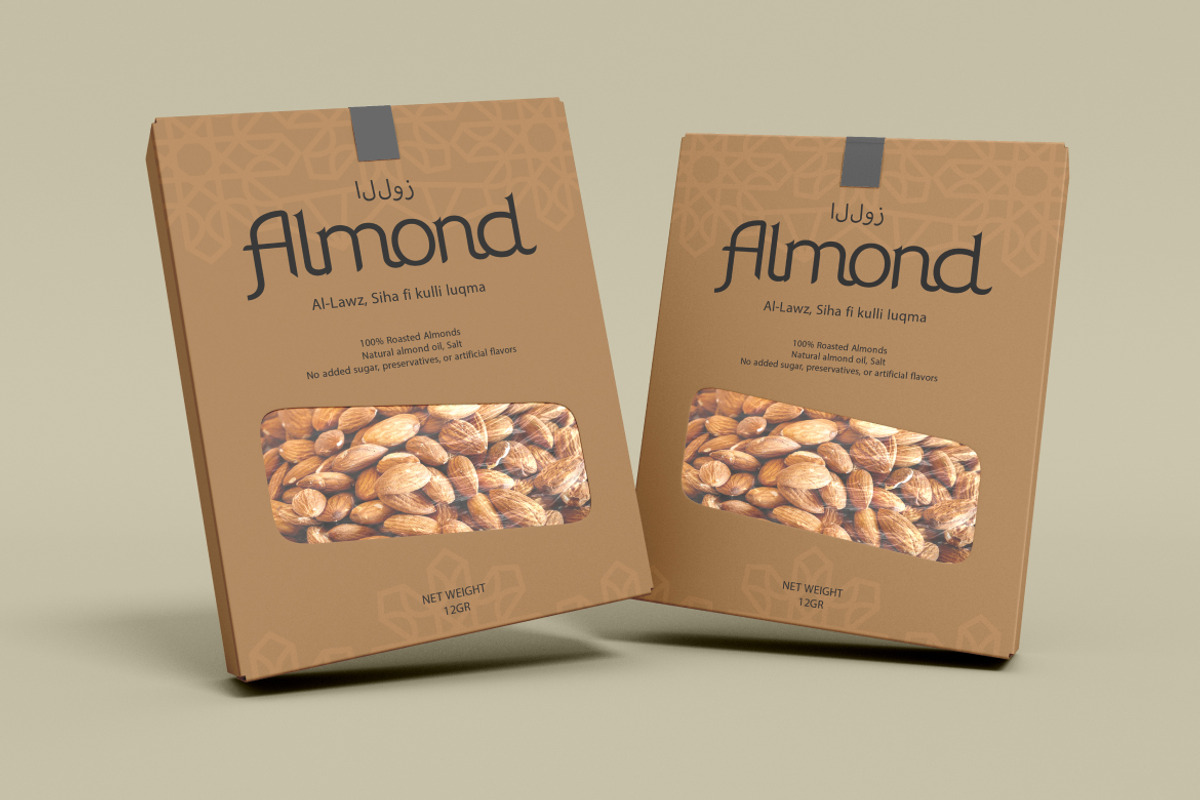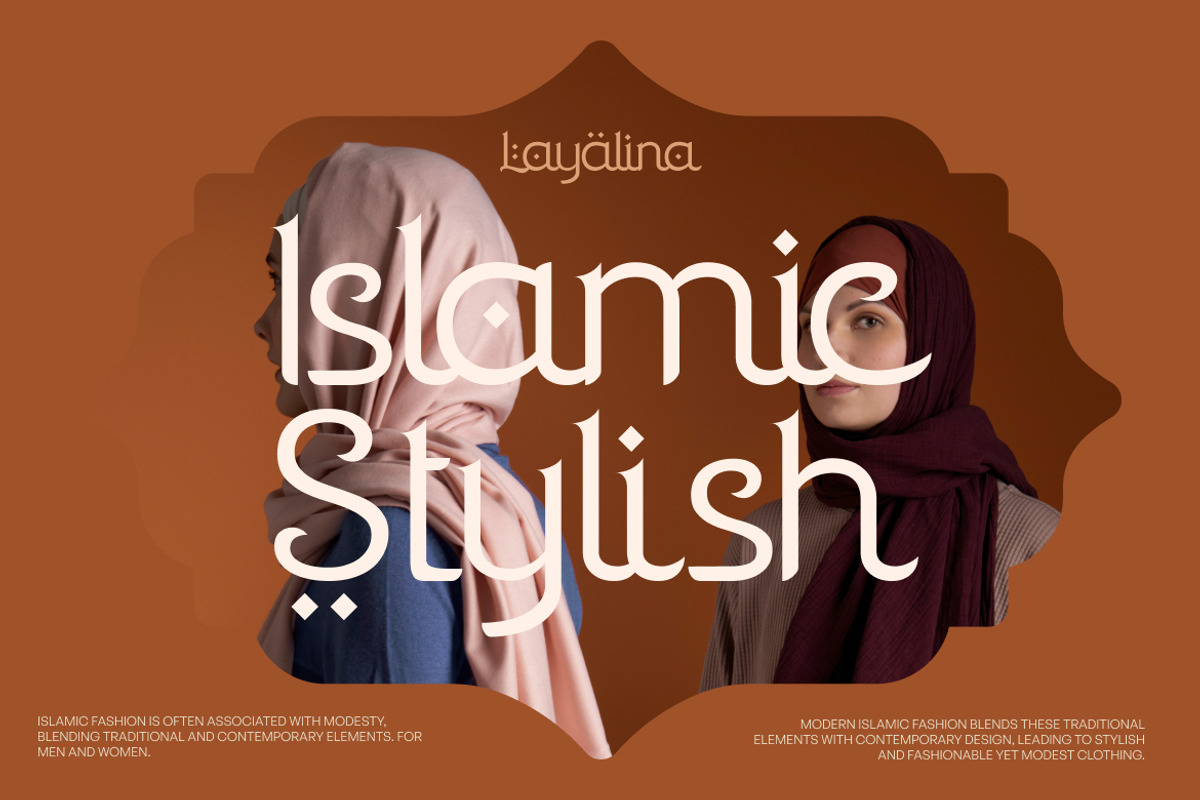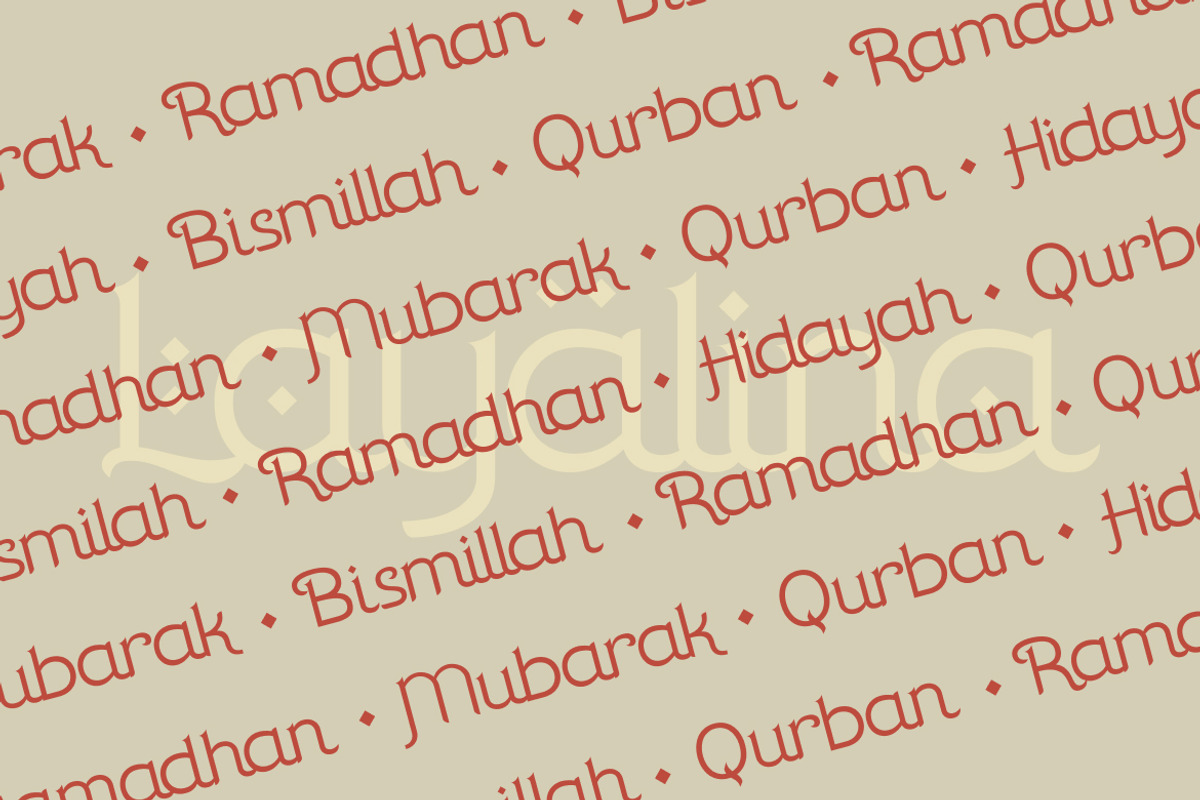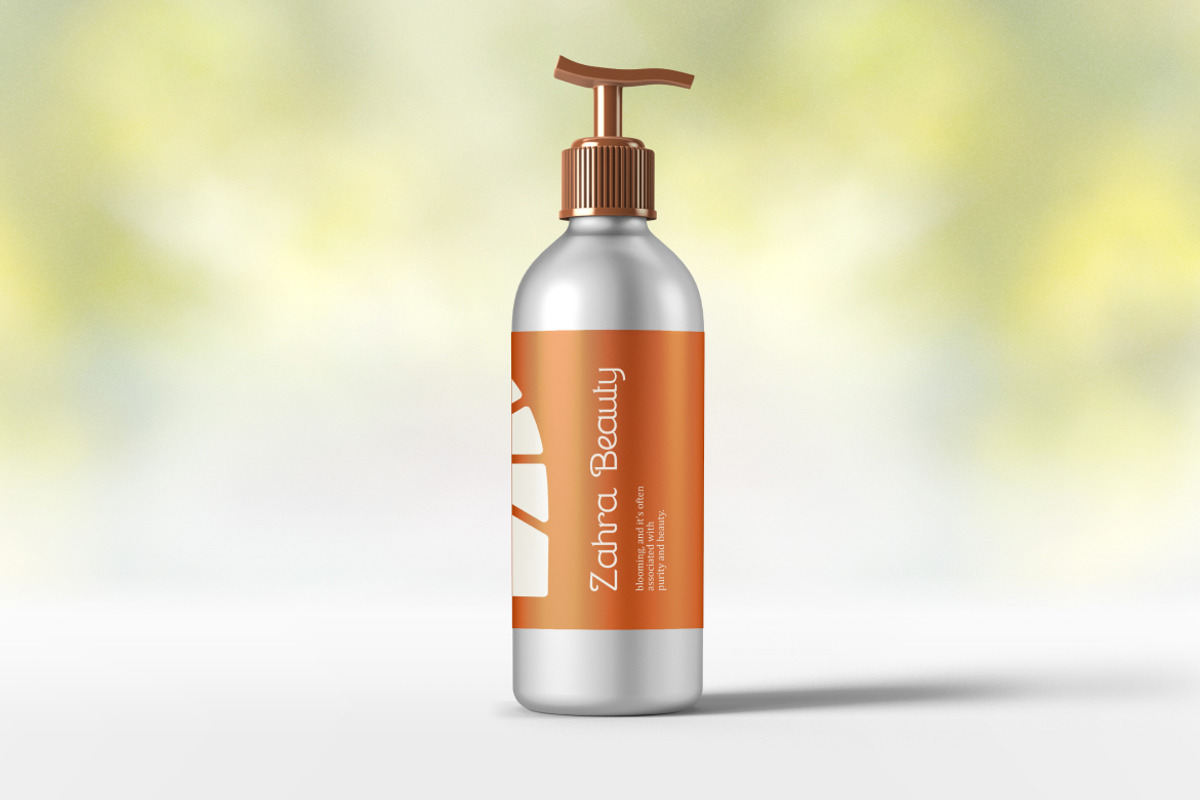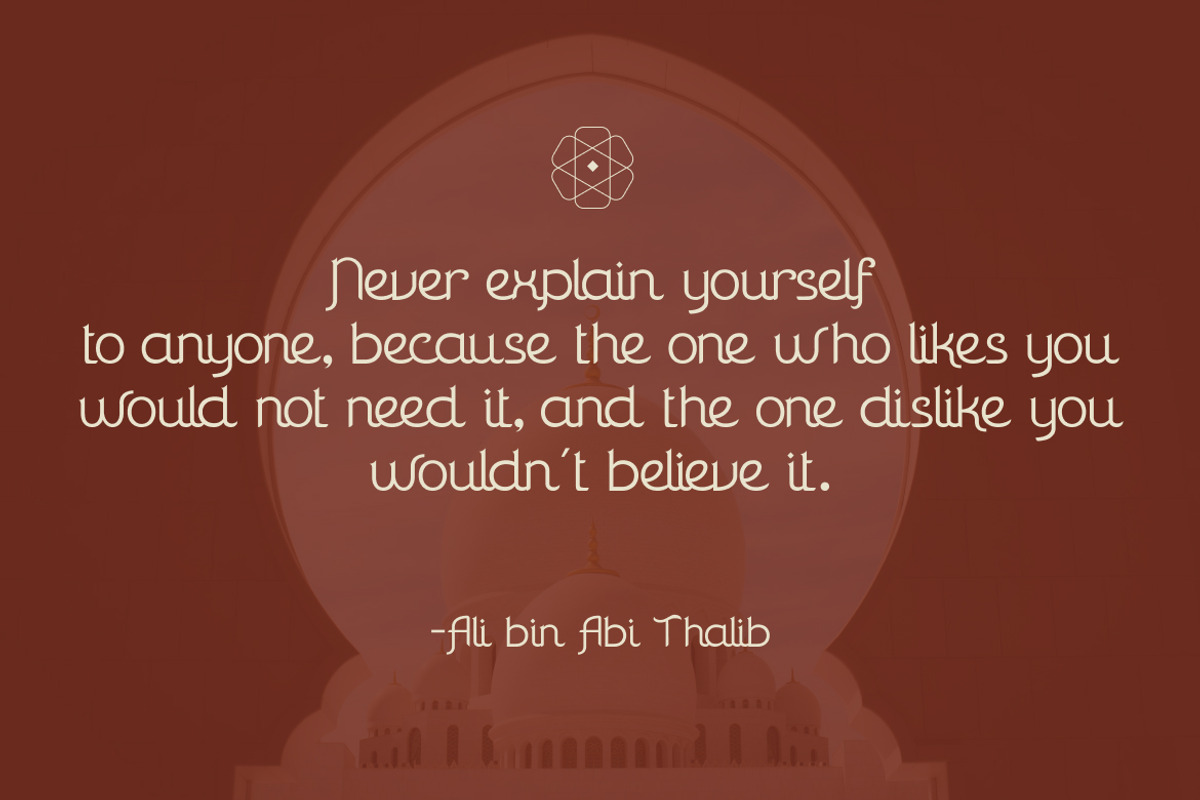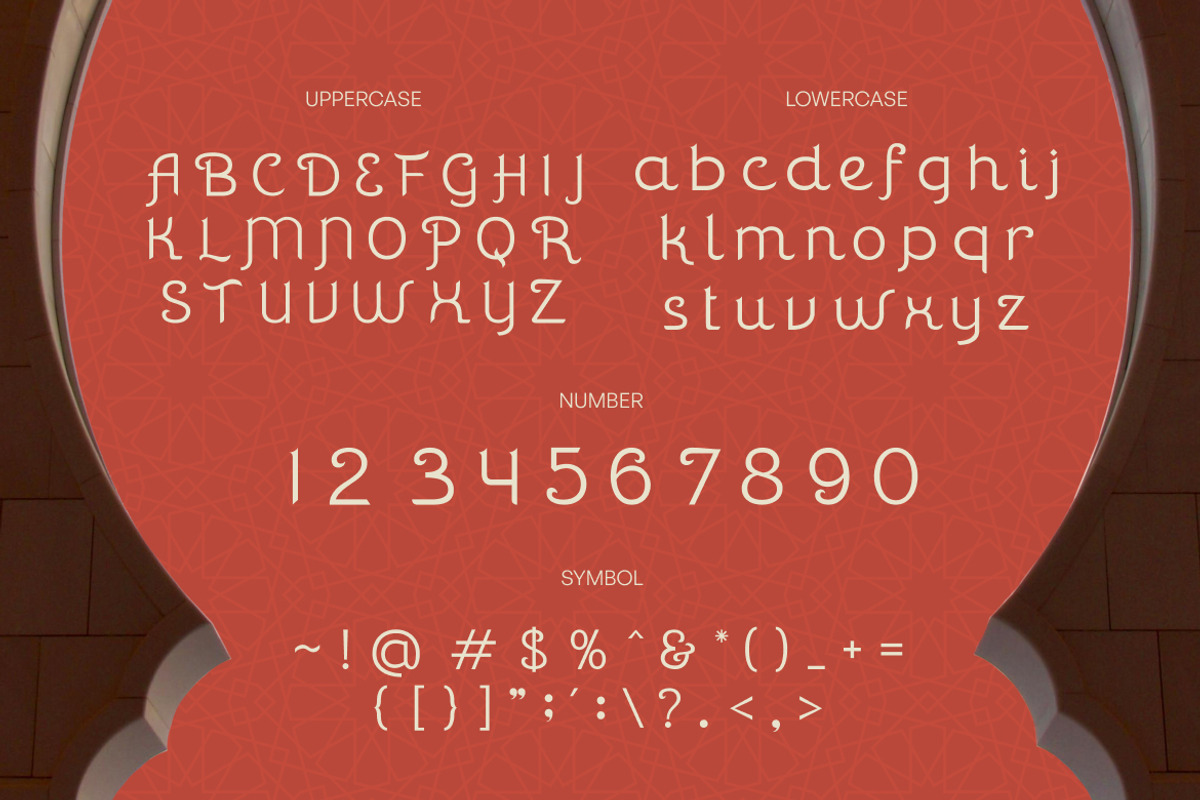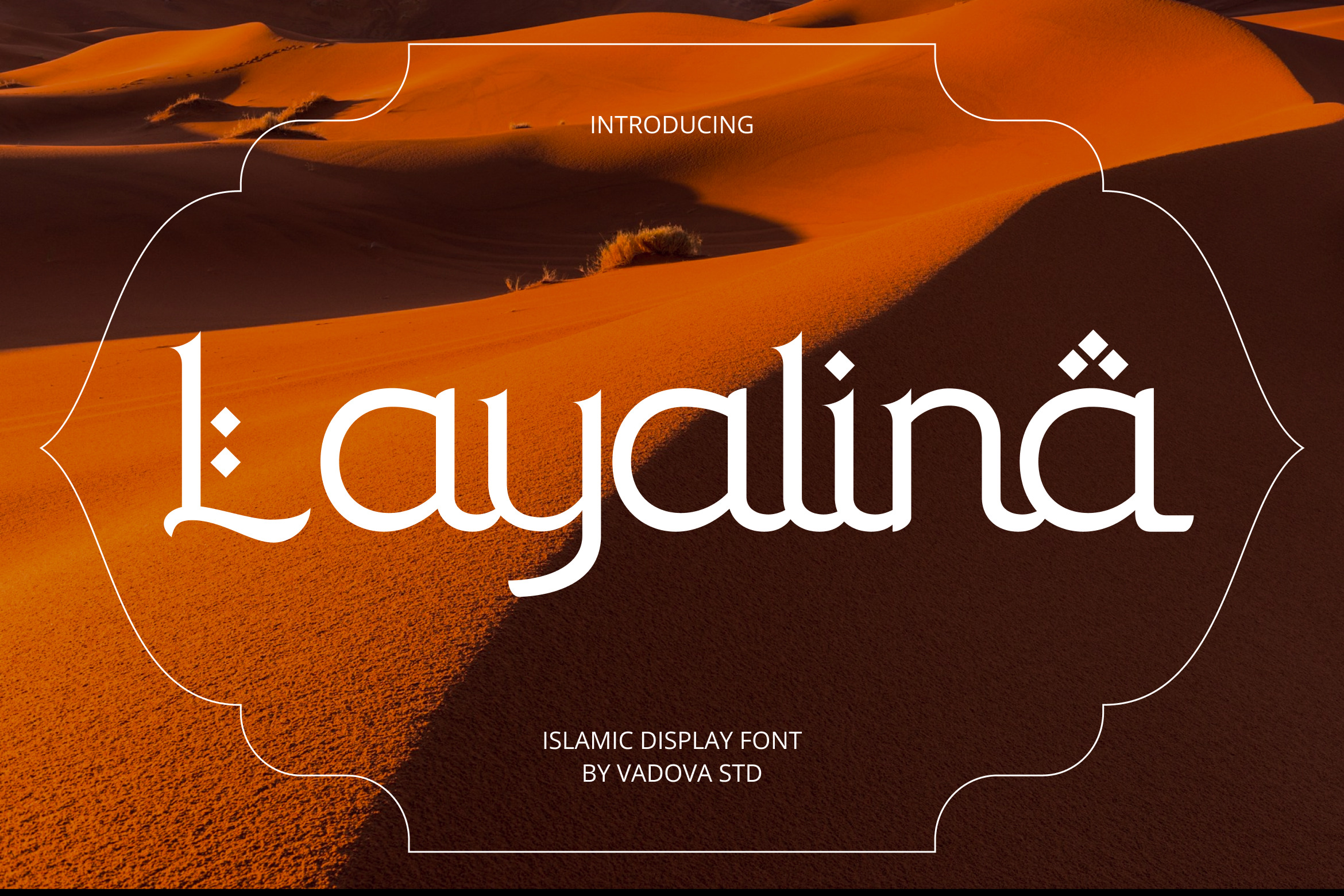
Layalina Islamic Display Font
Layalina is a stylish Islamic display font that beautifully merges traditional Arabic visual cues with a refined, modern geometric structure. Carefully designed to embody cultural depth and aesthetic elegance, Layalina features flowing curves, symmetrical forms, and sharp diacritic-inspired accents that echo the rich heritage of Middle Eastern calligraphy. Its letterforms are crafted with both charm and precision balancing ornamental character with clean readability, making it ideal for a wide variety of high-end design applications.
Layalina is particularly well-suited for use in luxury branding, modest fashion campaigns, editorial headlines, Eid and Ramadan greetings, packaging for halal or artisanal products, as well as spiritual or cultural event materials. Whether used in bold headlines or elegant logotypes, Layalina adds expressive warmth and a modern Islamic flair to every project, effortlessly blending faith-driven beauty with contemporary typographic trends.
- Geometric sans-serif base with Arabic-inspired detailing for cultural elegance
- Unique diacritic-style accents and symmetrical letterforms for distinct identity
- Rounded edges and smooth terminals to enhance legibility and softness
- Balanced stroke contrast for a refined, modern look
- Supports multilingual usage with consistent character styling across scripts
- Branding projects for modest fashion labels or Islamic lifestyle brands
- Wedding invitations, Eid cards, and ceremonial event stationery
- Packaging for halal cosmetics, artisan goods products
- Social media graphics and content kits for Ramadan, Eid
- Book covers, journals, or quotes with a poetic, graceful, or religious touch
Merge faith and form Layalina balances beauty, legibility, and meaning